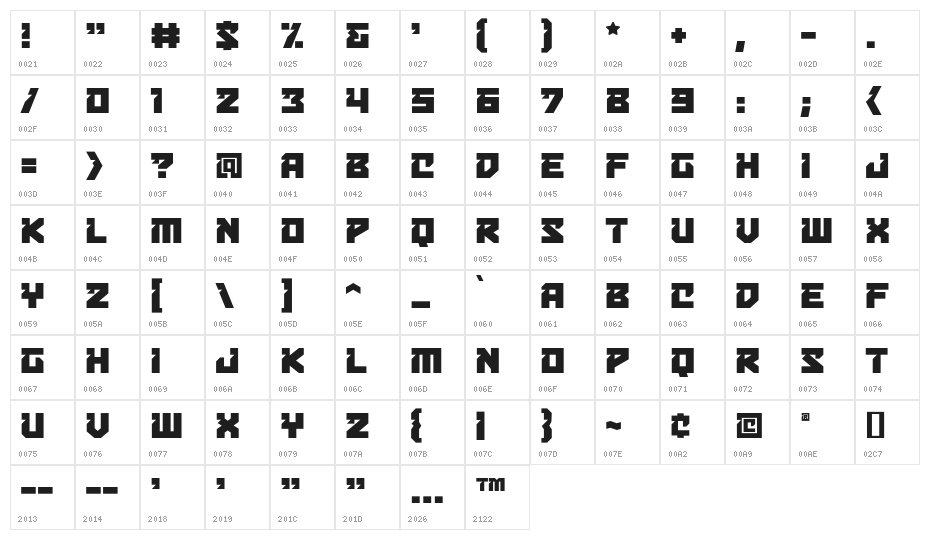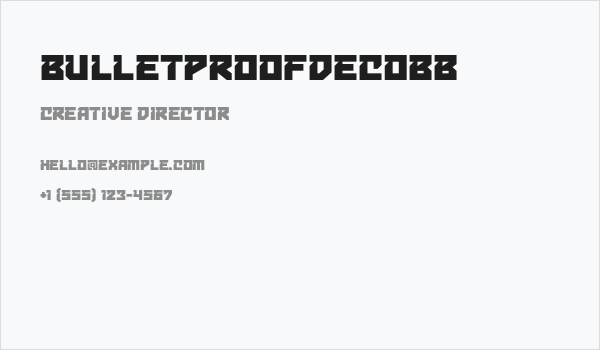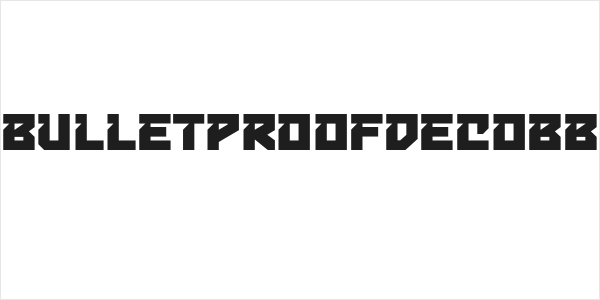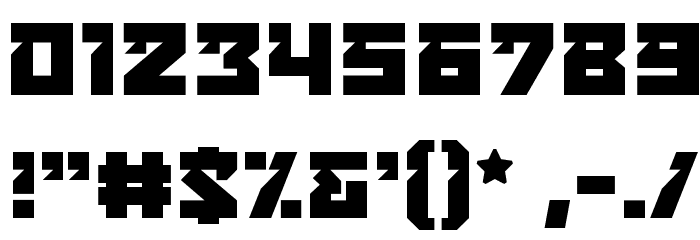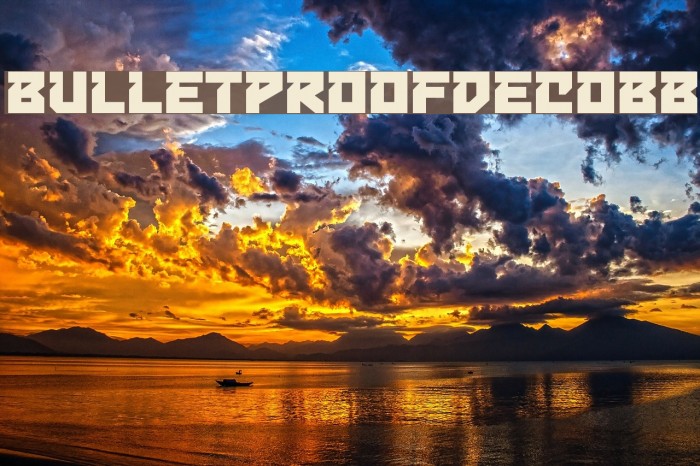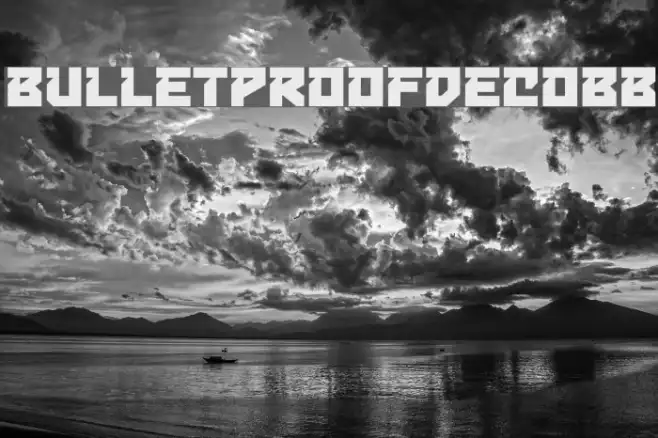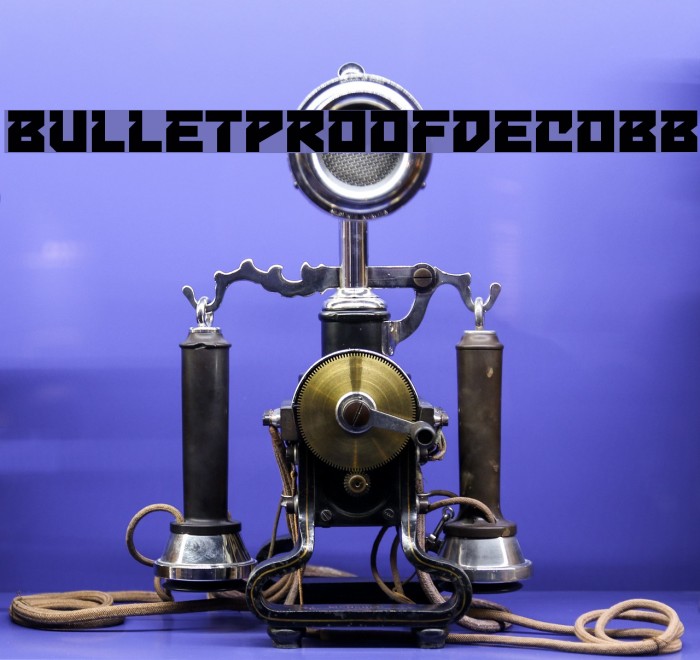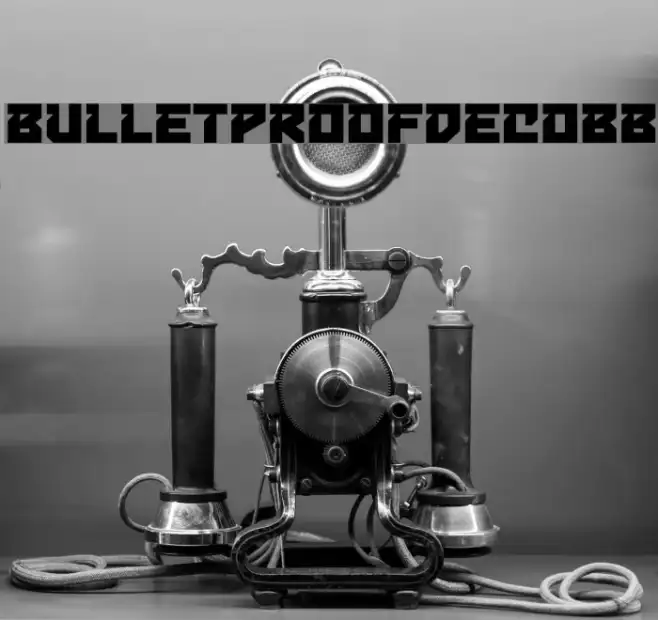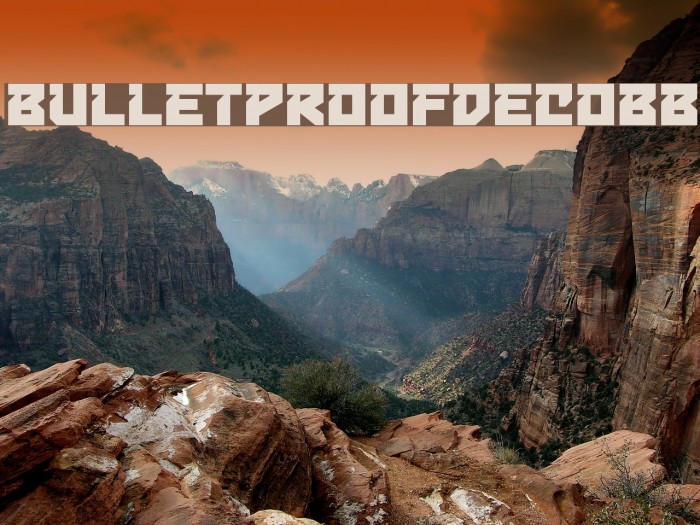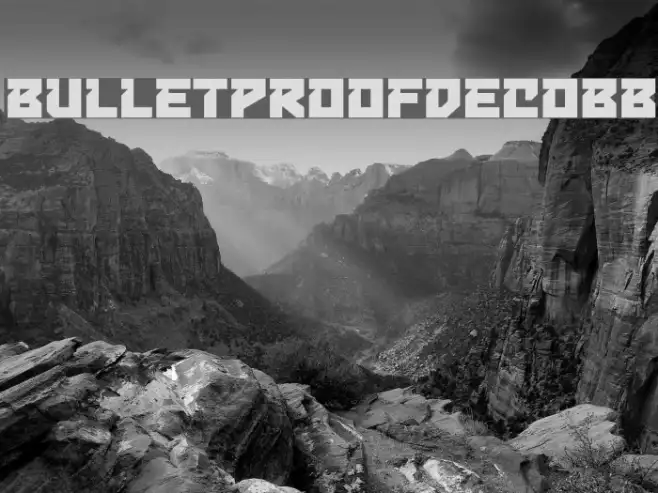
BulletproofDecoBB Font
BulletproofDecoBB Description
This font features a bold and geometric design with a strong, angular appearance. The characters are constructed with sharp edges and straight lines, giving it a futuristic and industrial feel. The uppercase and lowercase letters maintain a consistent style, while the numerals and special characters complement the overall aesthetic. The font's boldness and distinct shapes make it highly legible and impactful, suitable for attention-grabbing designs.
| Proposed Projects | Ideal for use in posters, logos, video game graphics, and any project requiring a strong, modern aesthetic. |